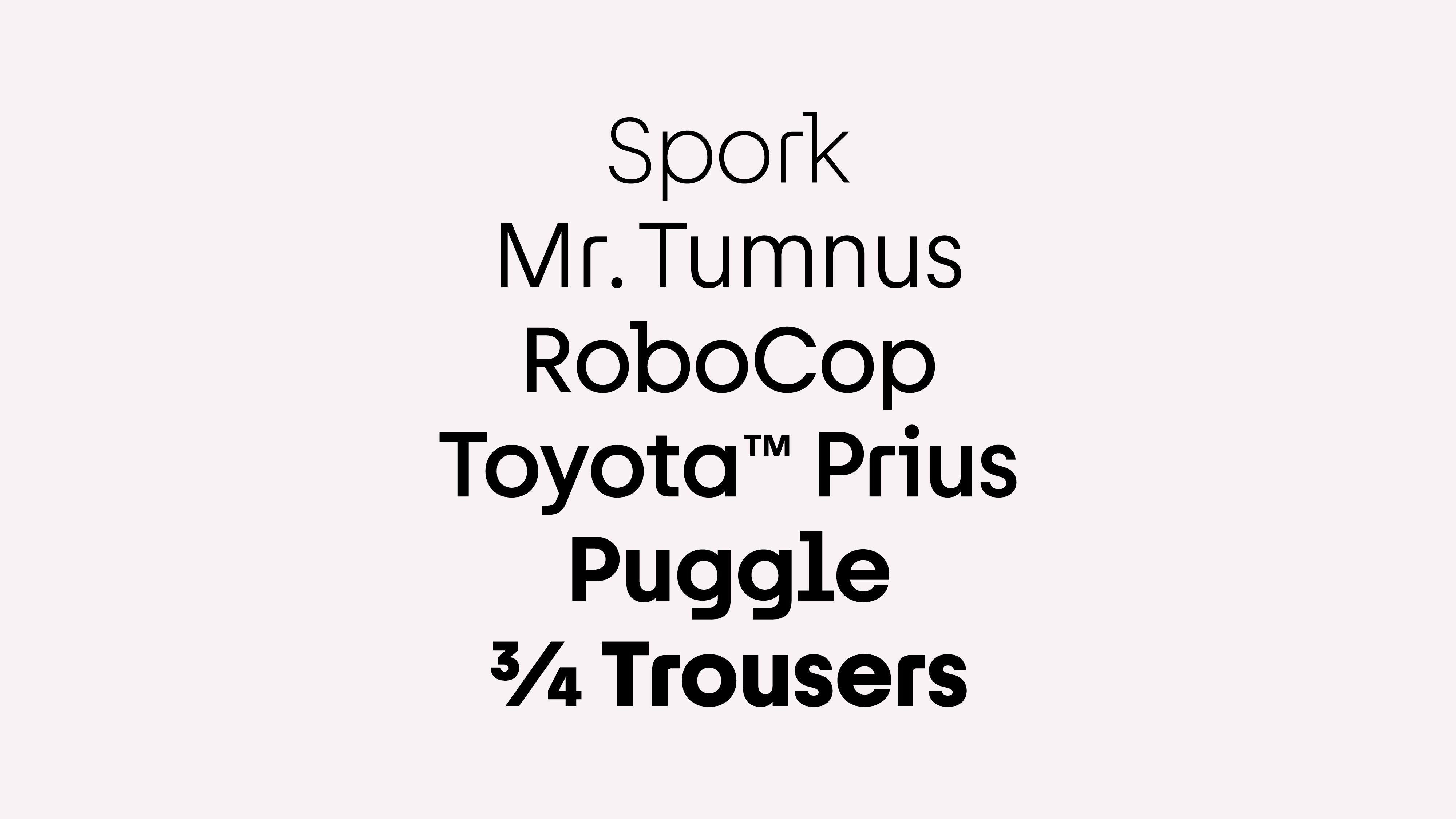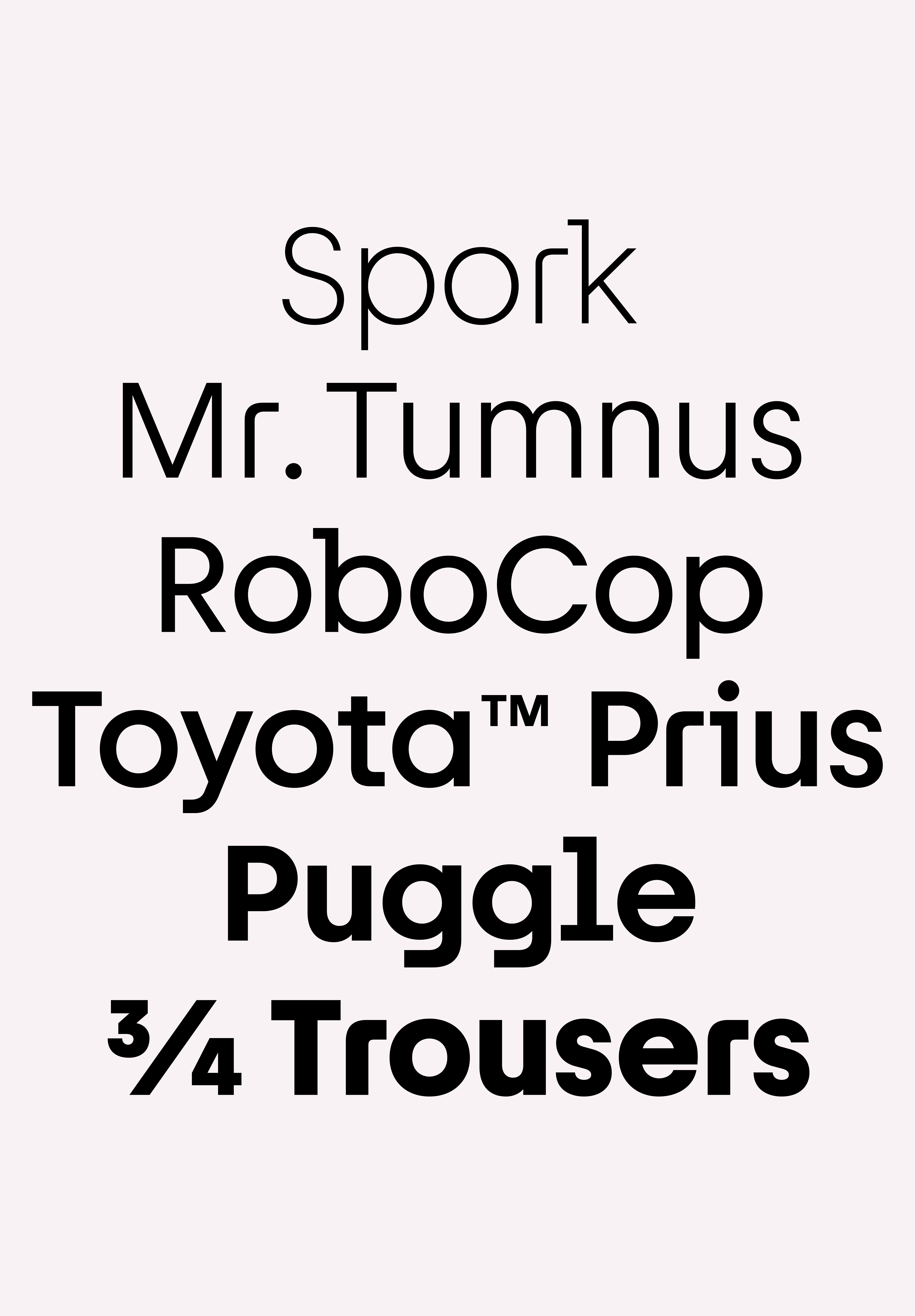
F37 Hybrid®
F37 Hybrid is an unusual display font that subtly mixes typographic elements from slab serif and sans serif letterforms to create a distinctly different aesthetic.